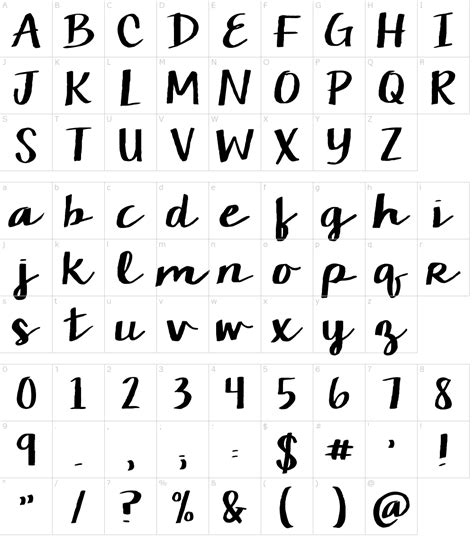
Kg camden market script is a script and brush script font published by kimberly geswein fonts. Updated april 2015 to change name to kg camden market script due to naming conflict. Please, talk with the author for commercial use or for any support. Download kg camden market script font for windows. It was added to fontspace on jan 24, 2015.
This font uploaded 21 september 2015. Unfortunately this font is removed due to copyright issues. 105,701 downloads (8 yesterday) free for personal use. Kg camden market script regular font. A whimsical, handlettered brushstroke watercolor font. In script > brush 101,103 downloads (18 yesterday) free for personal use. Font license:free for personal use. Updated april 2015 to change name to kg camden market script due to naming conflict. Click here to view another set. Download kg camden market script font (1 styles). Введите текст в поле, расположенное ниже. Display (1) display (4) display (1) display font (2) display font (9) display font typeface (4) display typeface (3) down later (7) download jerrr (13) downloaded (1) dual_ (9). Previous articlejanda elegant handwriting font.